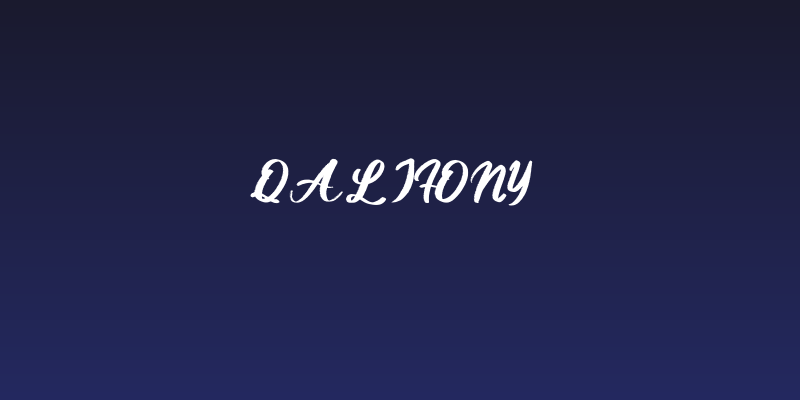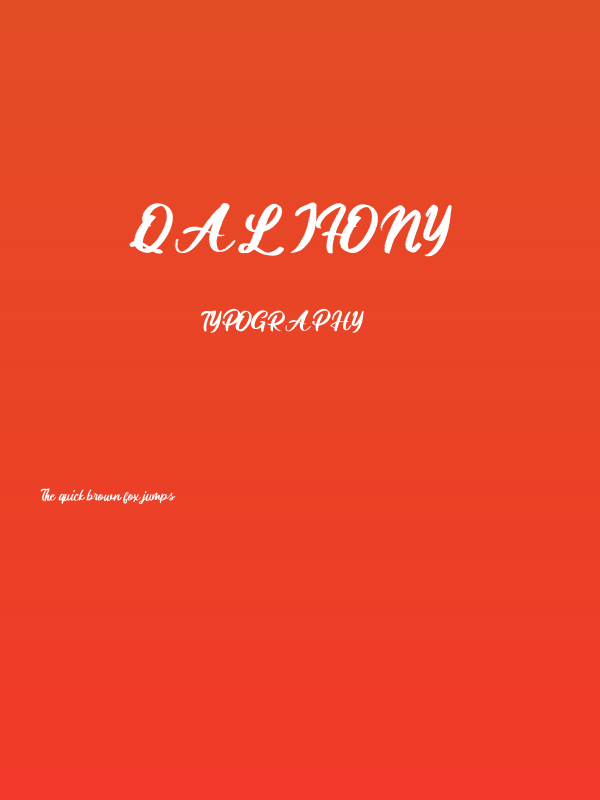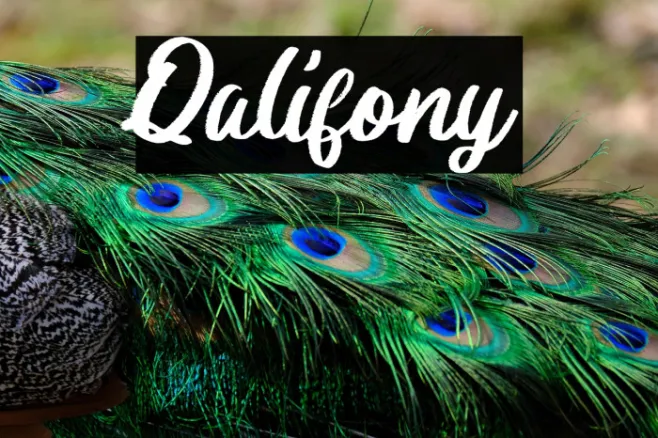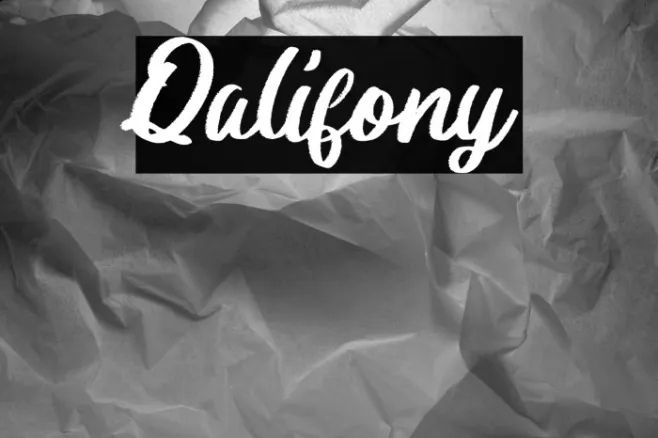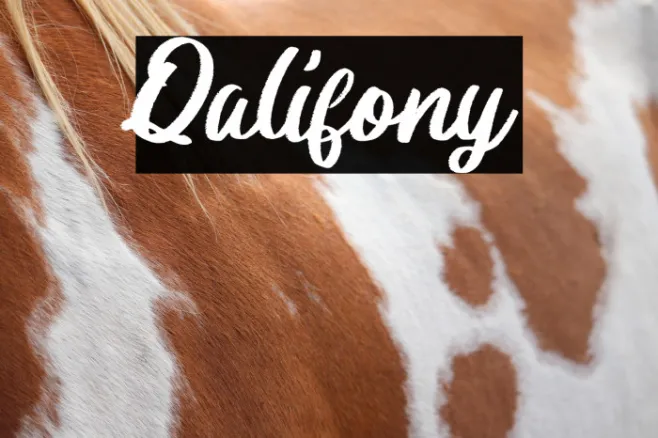
Qalifony Font
Qalifony Description
This font features a bold and expressive script style, characterized by its flowing, cursive letters that convey a sense of elegance and dynamism. The uppercase letters are slightly larger and more pronounced, while the lowercase letters maintain a consistent flow, enhancing readability. The numerals are well-integrated, matching the overall style with a touch of flair. Special characters are included, maintaining the same stylistic approach, making it versatile for various uses. The strokes are thick, providing a strong visual impact, and the overall design is cohesive, making it suitable for creative and decorative applications.